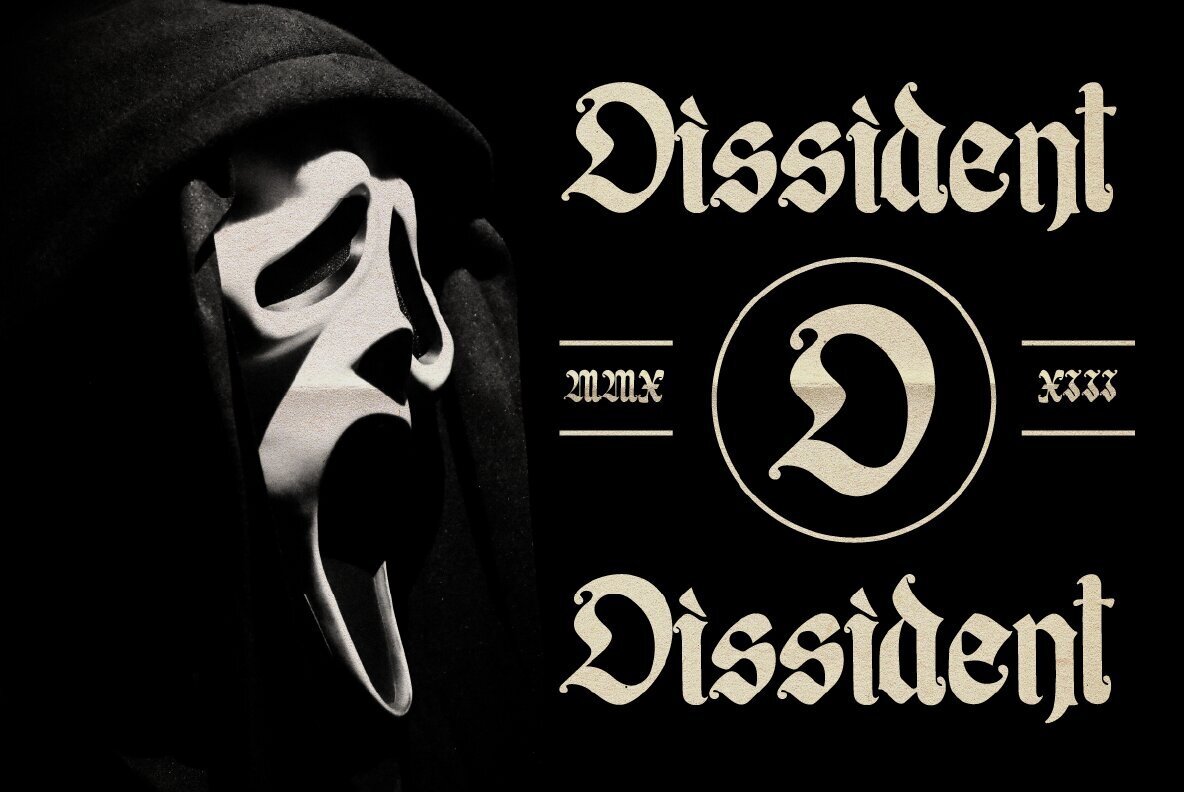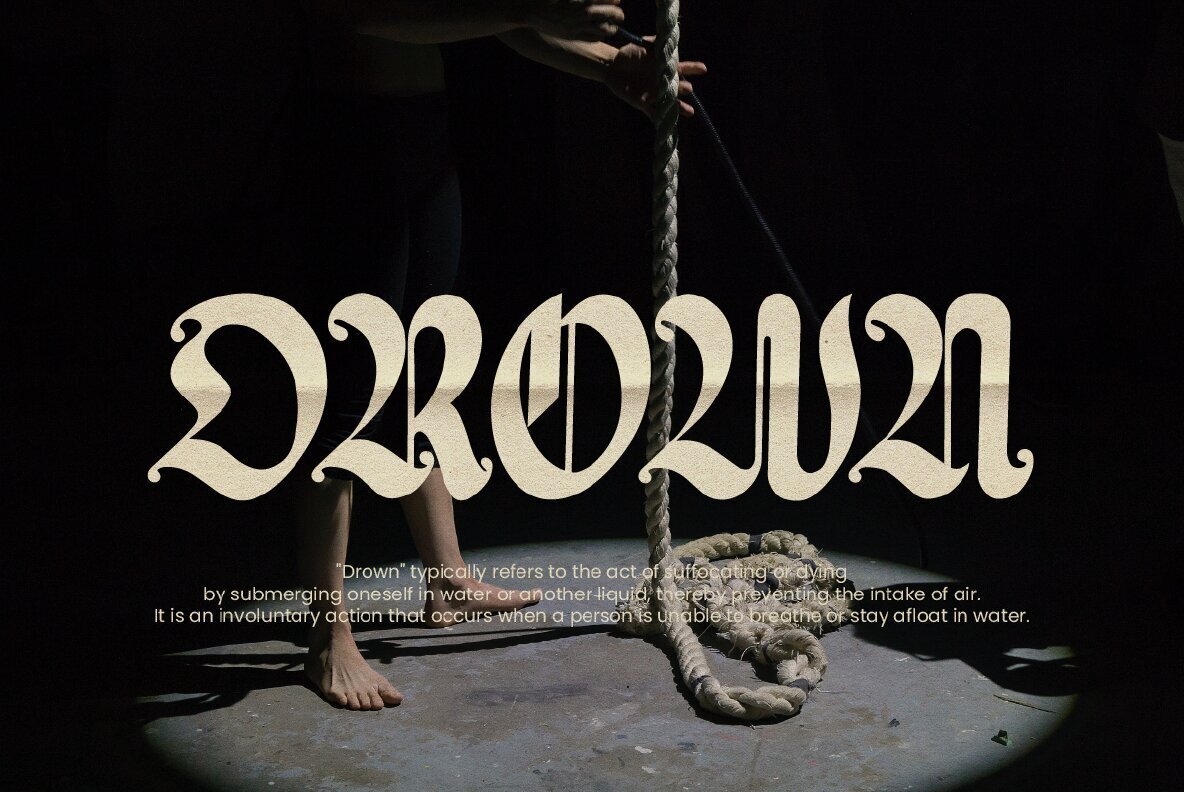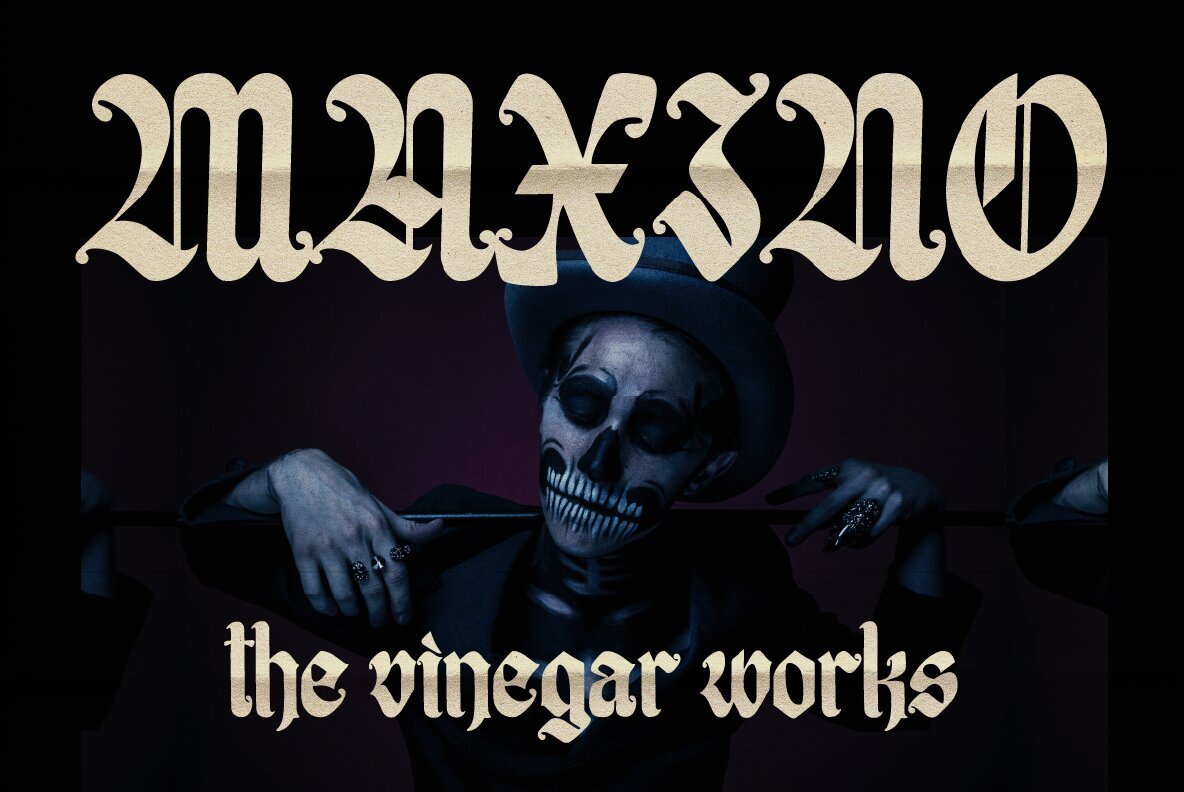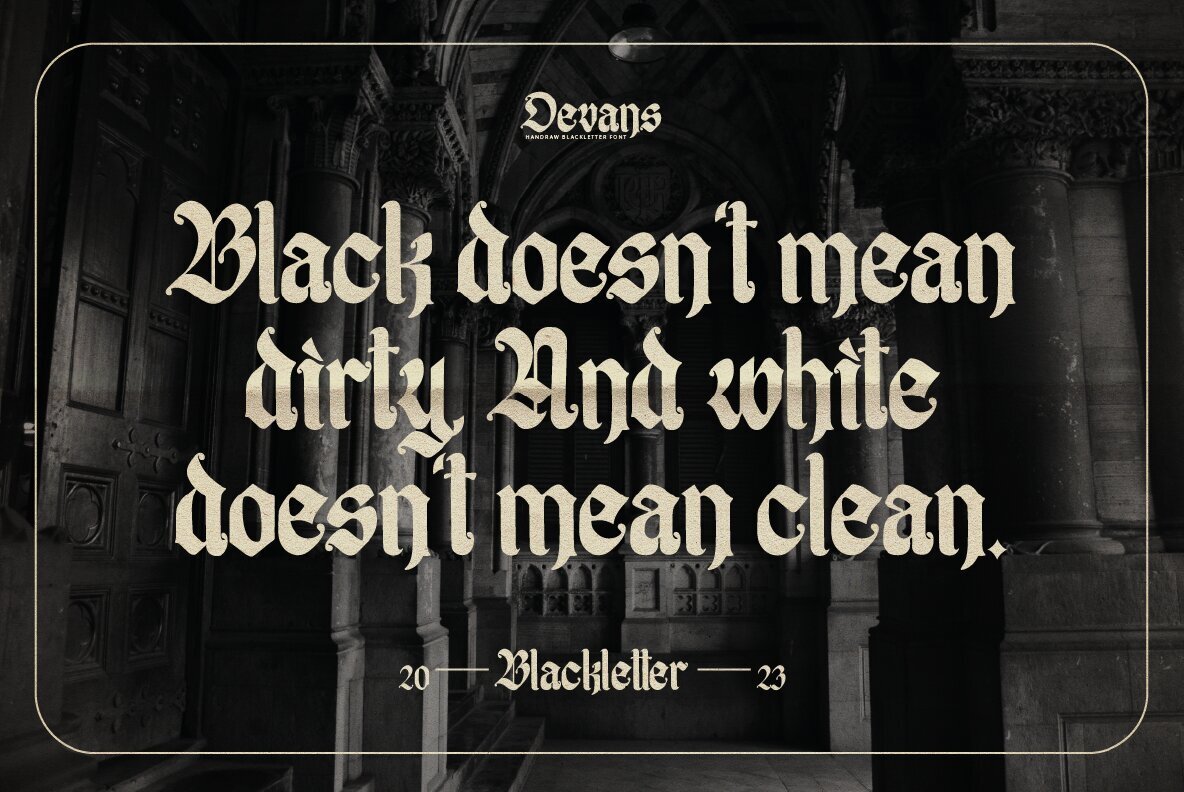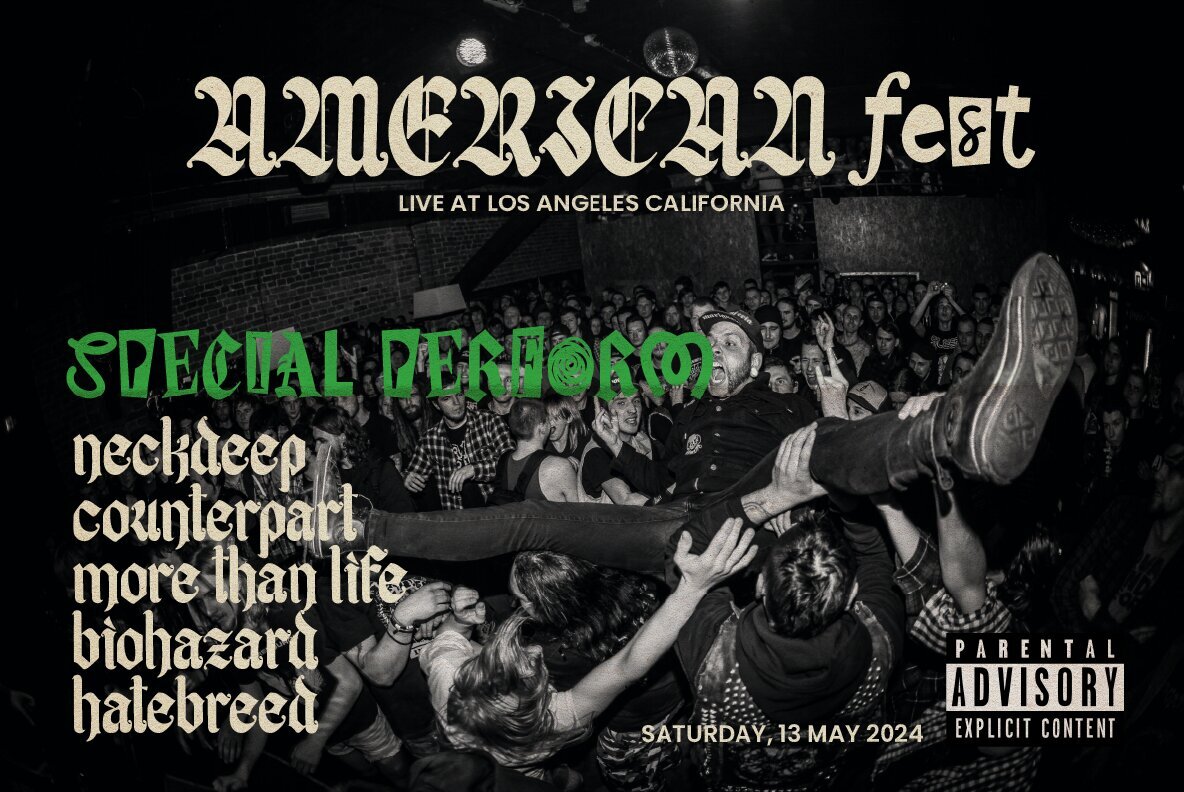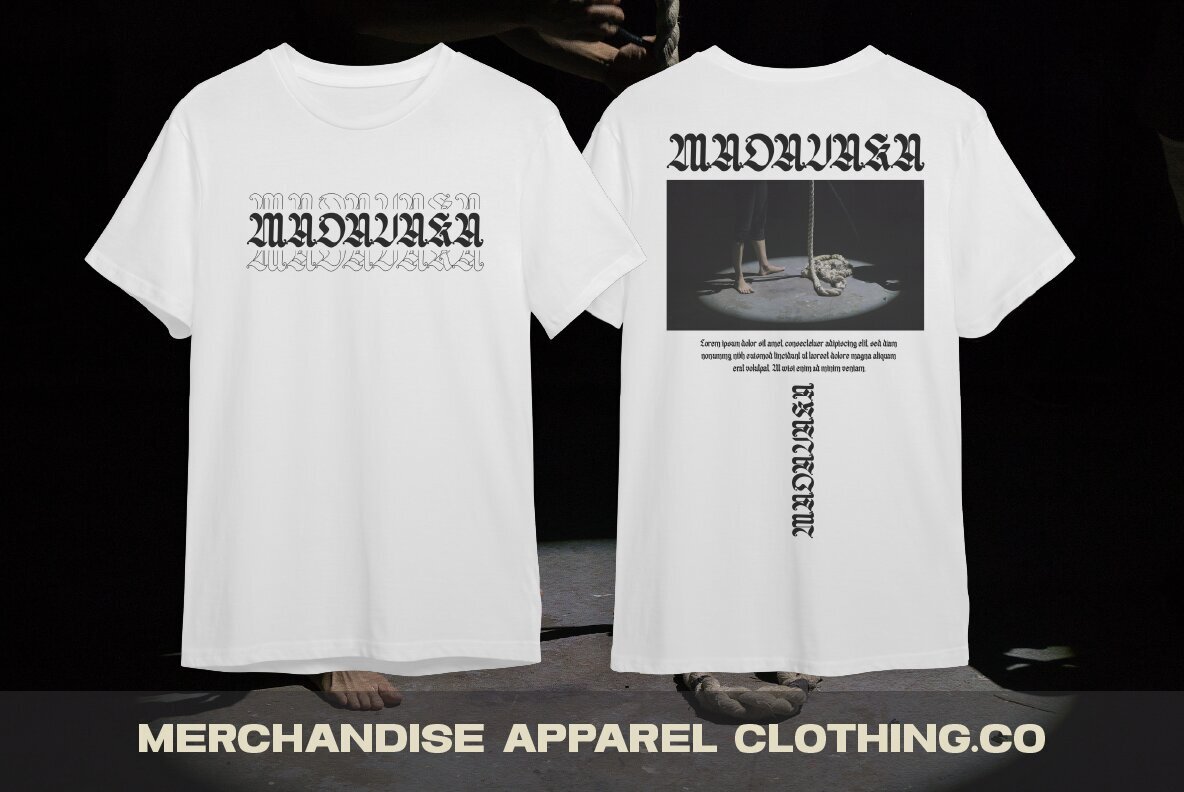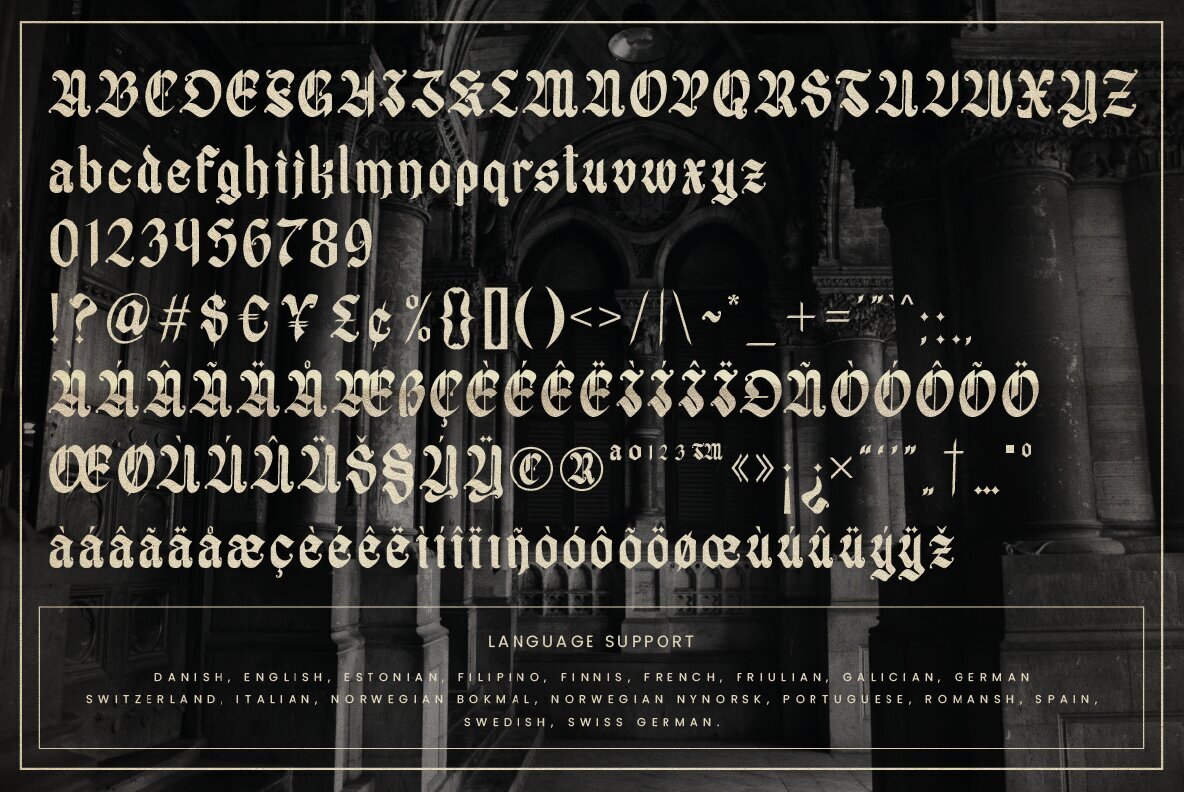
Devans is a high-contrast blackletter typeface, it adds a bold touch to your projects and will inspire you to create something unique and modern. This font also comes with alternative characters, and multi-language support. This font is ideal for titles, flyers, book covers, printed quotes, logotypes, clothing designs, branding and album covers.